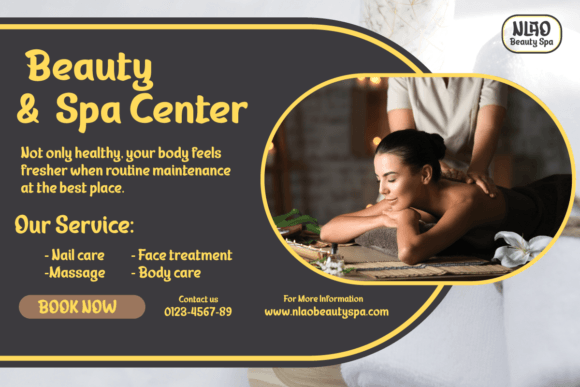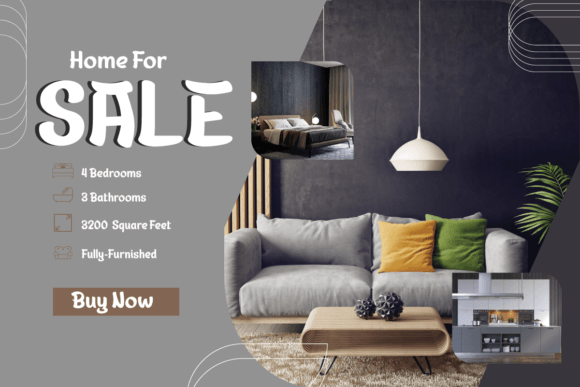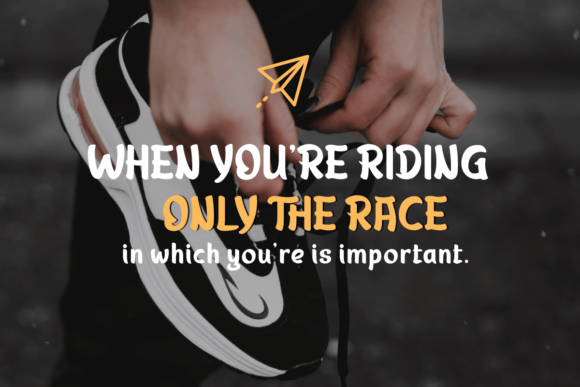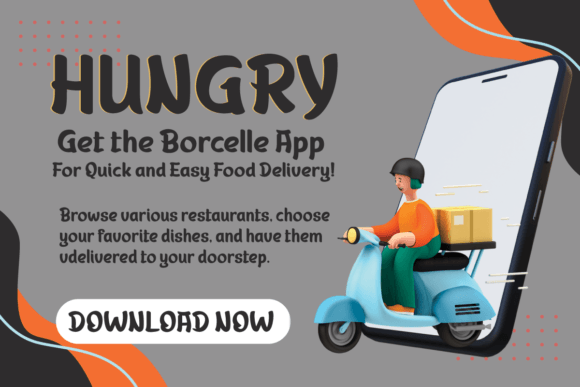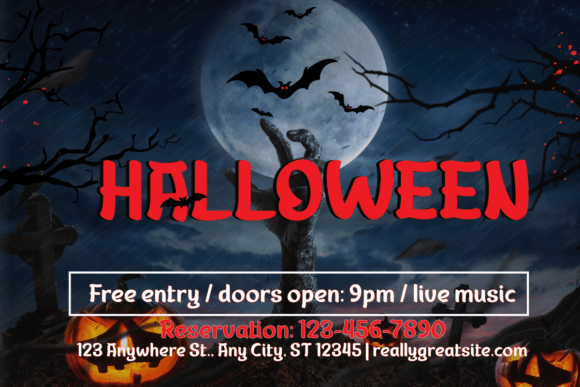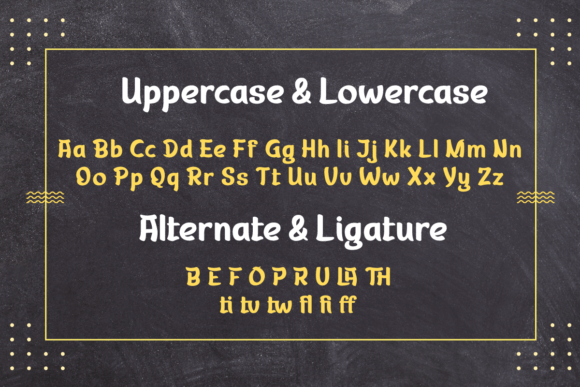
Introduction to Molarud Font
Introducing MOLARUD Font – a captivating display typeface that effortlessly captures the authenticity of handwriting1 Elevate your projects with the artistic touch of MOLARUD, a seamless fusion of style and individuality.
Meticulously designed, this typeface adds a distinct charm to diverse design projects, from invitations to branding materials Featuring fluid ligatures and alternate characters, MOLARUD empowers you to craft unique compositions with ease.
Key Features of Molarud Font
Why Choose Molarud Font?
Molarud Font offers exceptional quality and versatility, making it a valuable addition to your design toolkit. Whether you’re creating for personal projects or commercial use, Molarud Font delivers professional results.